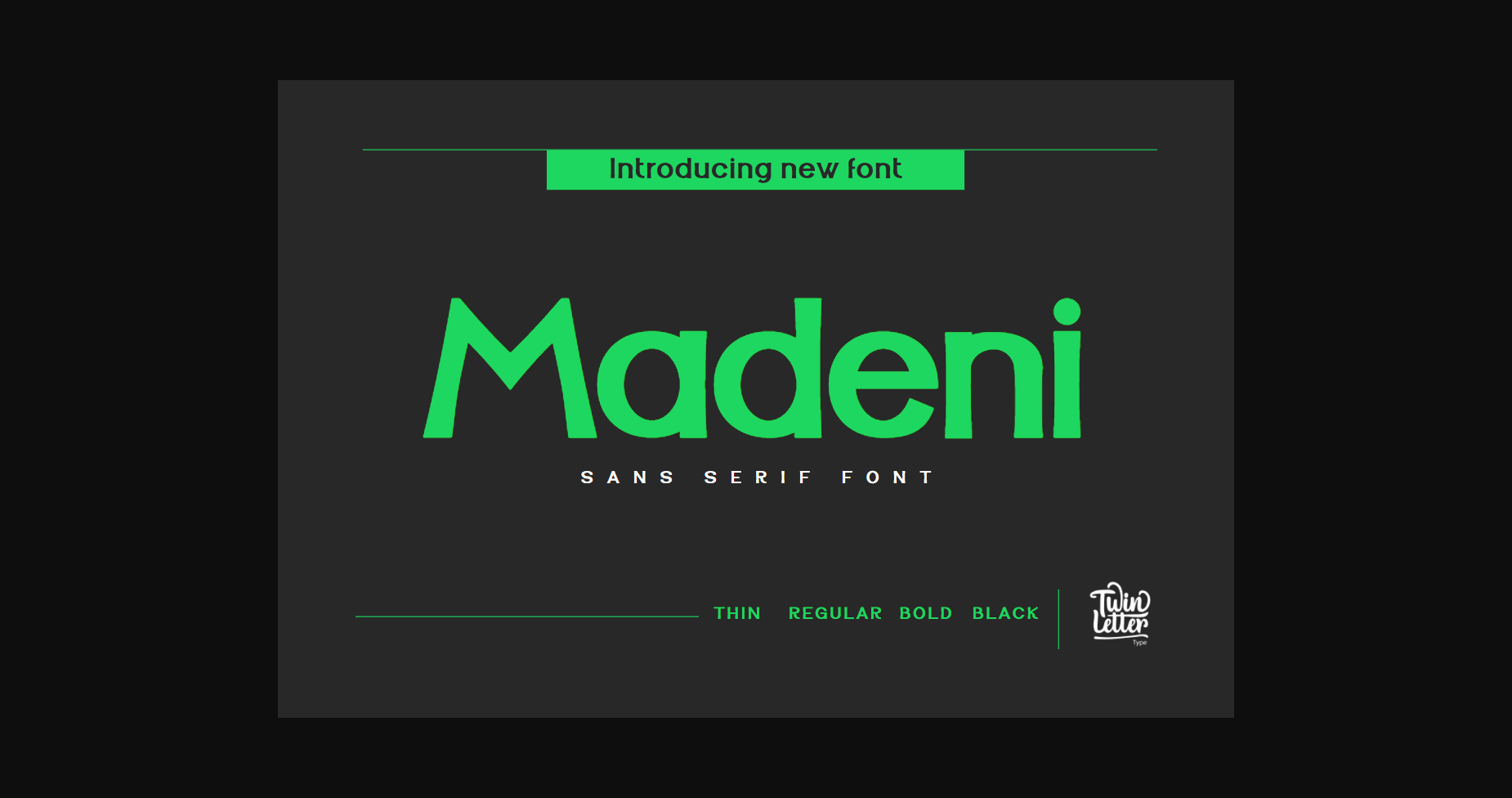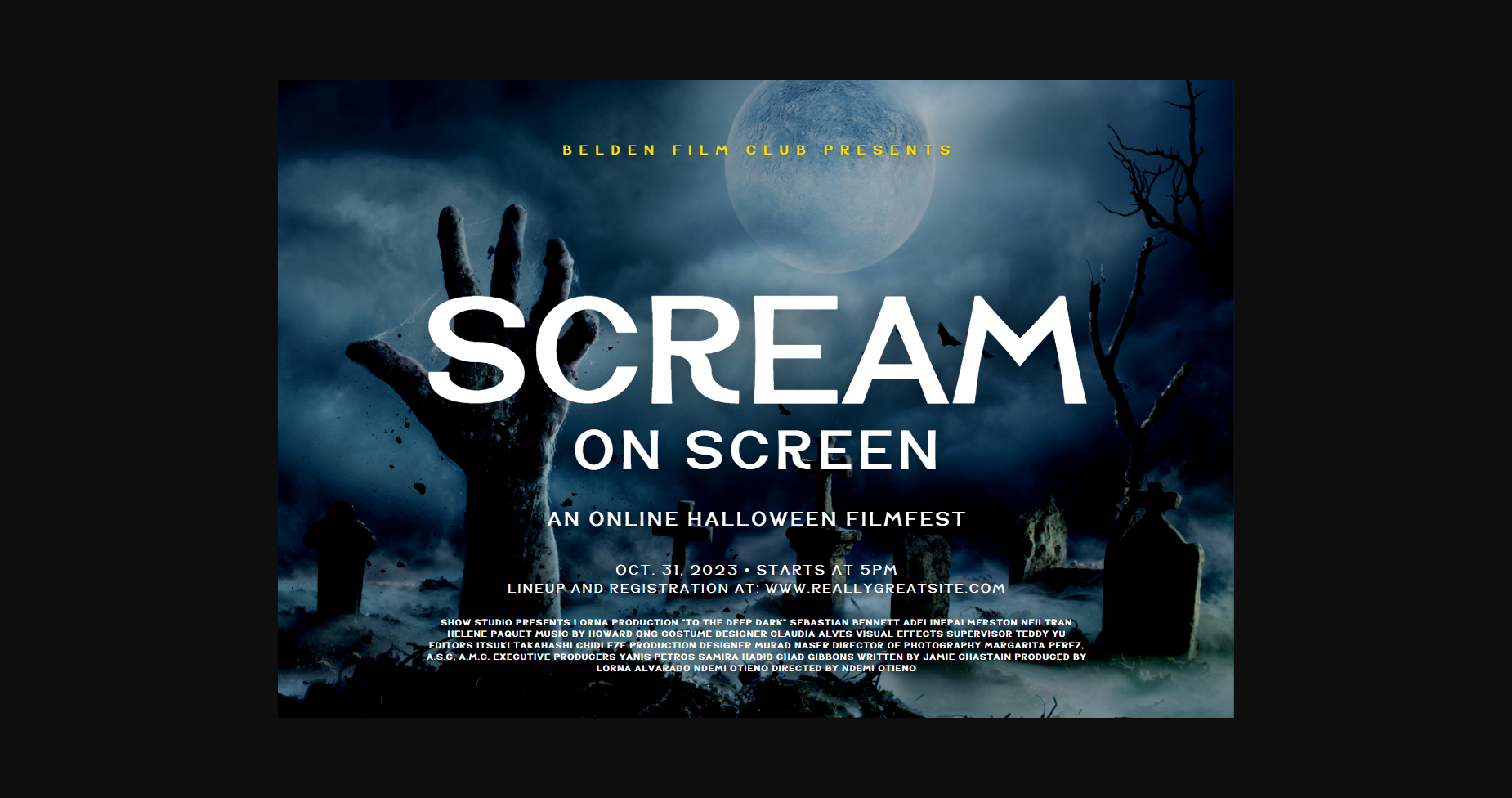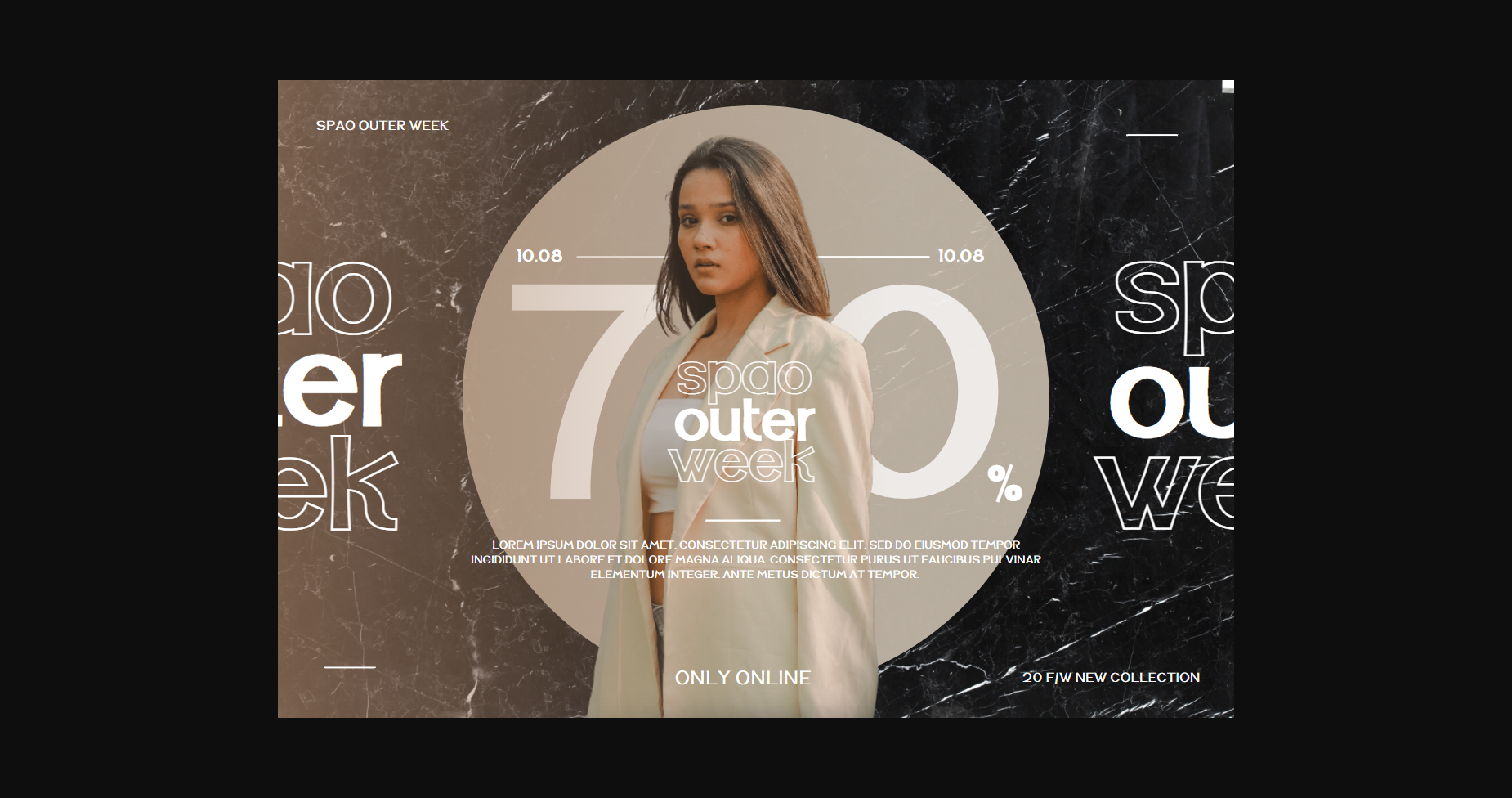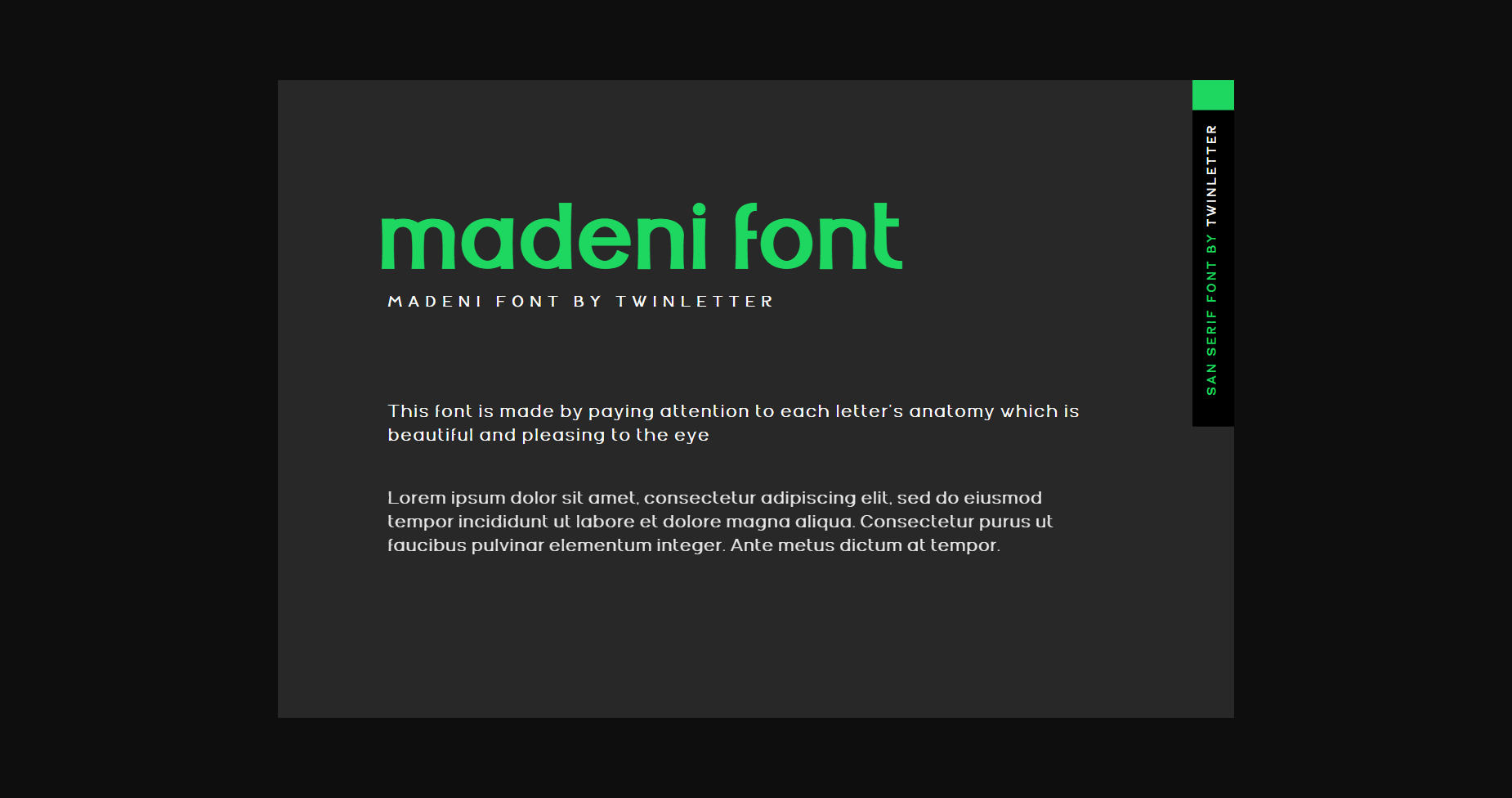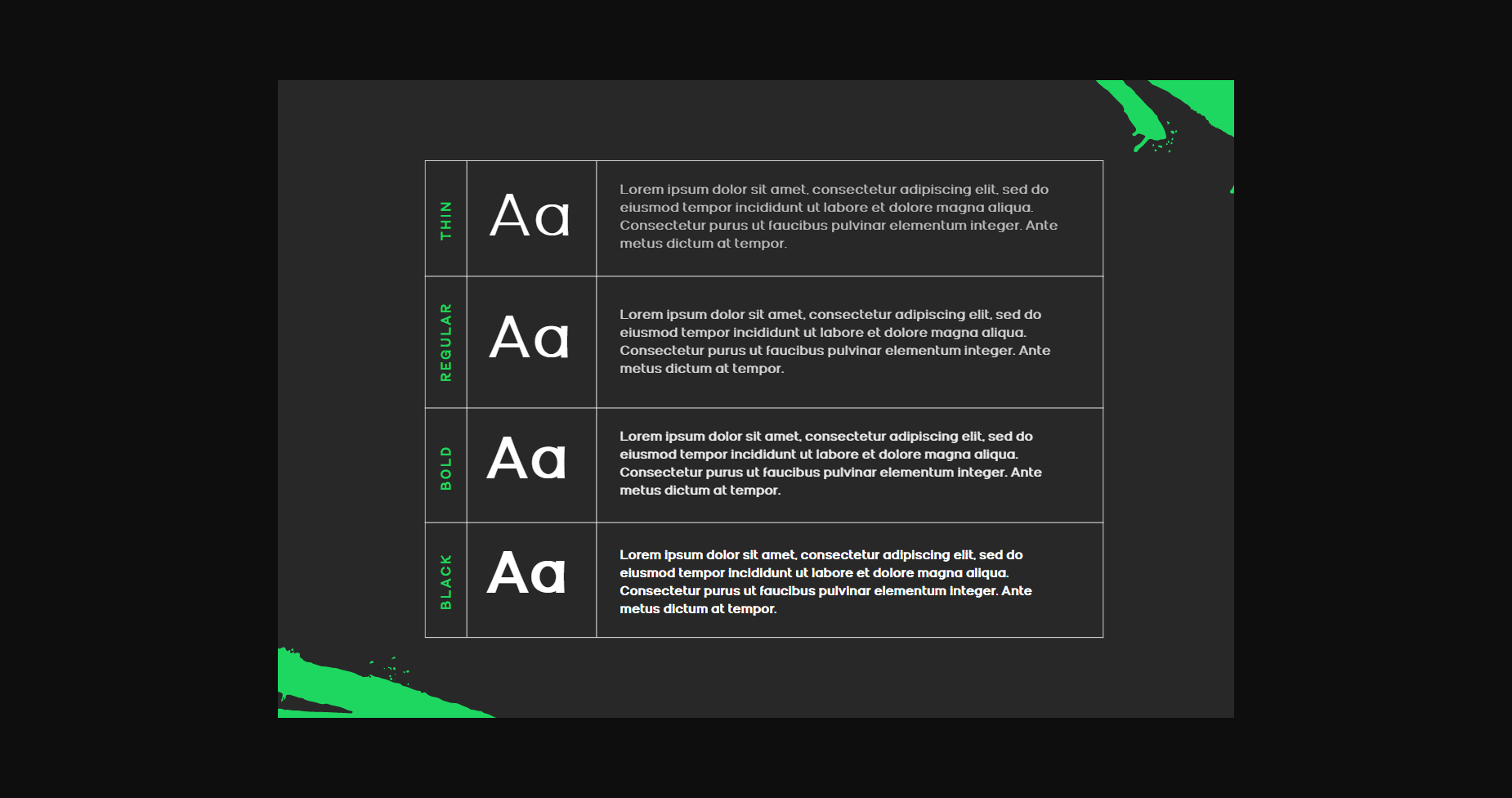
About Madeni Font
Madeni is a bold and sans serif font. It is perfect for any branding project such as logos, t-shirt printing, creative products, and more. It will look extraordinary in a variety of contexts.